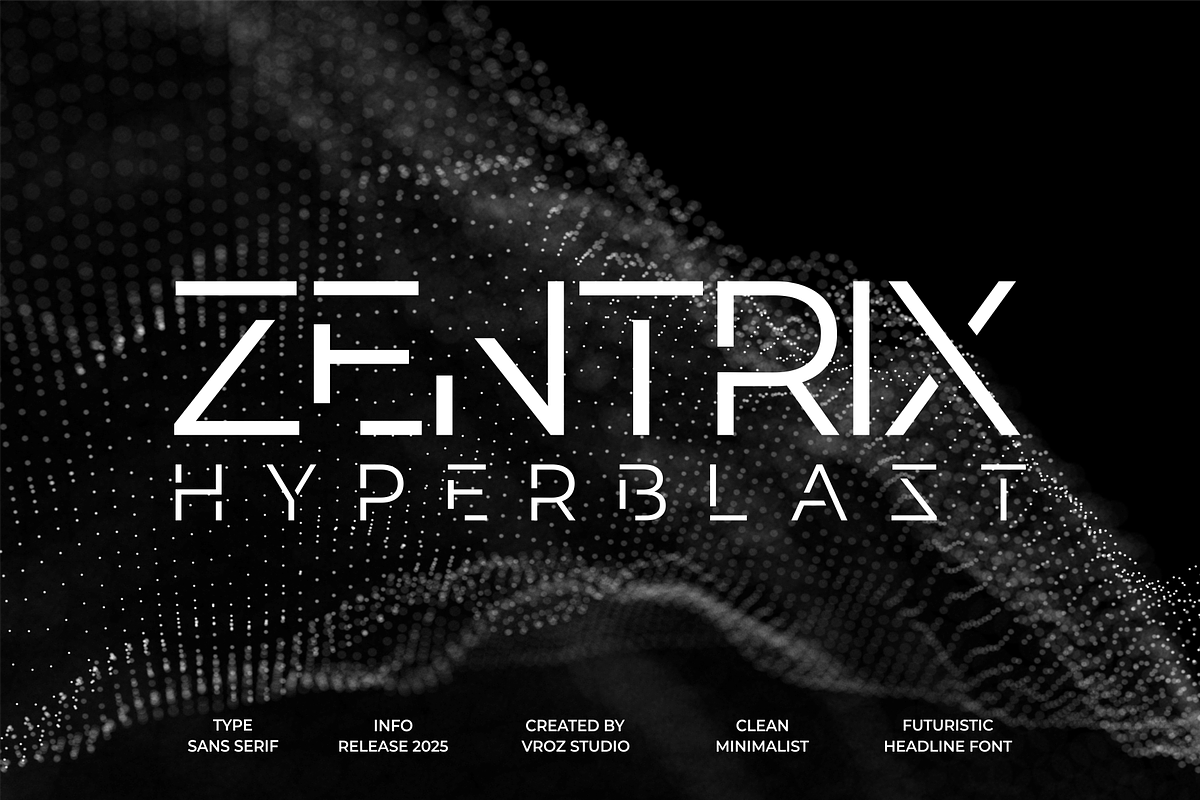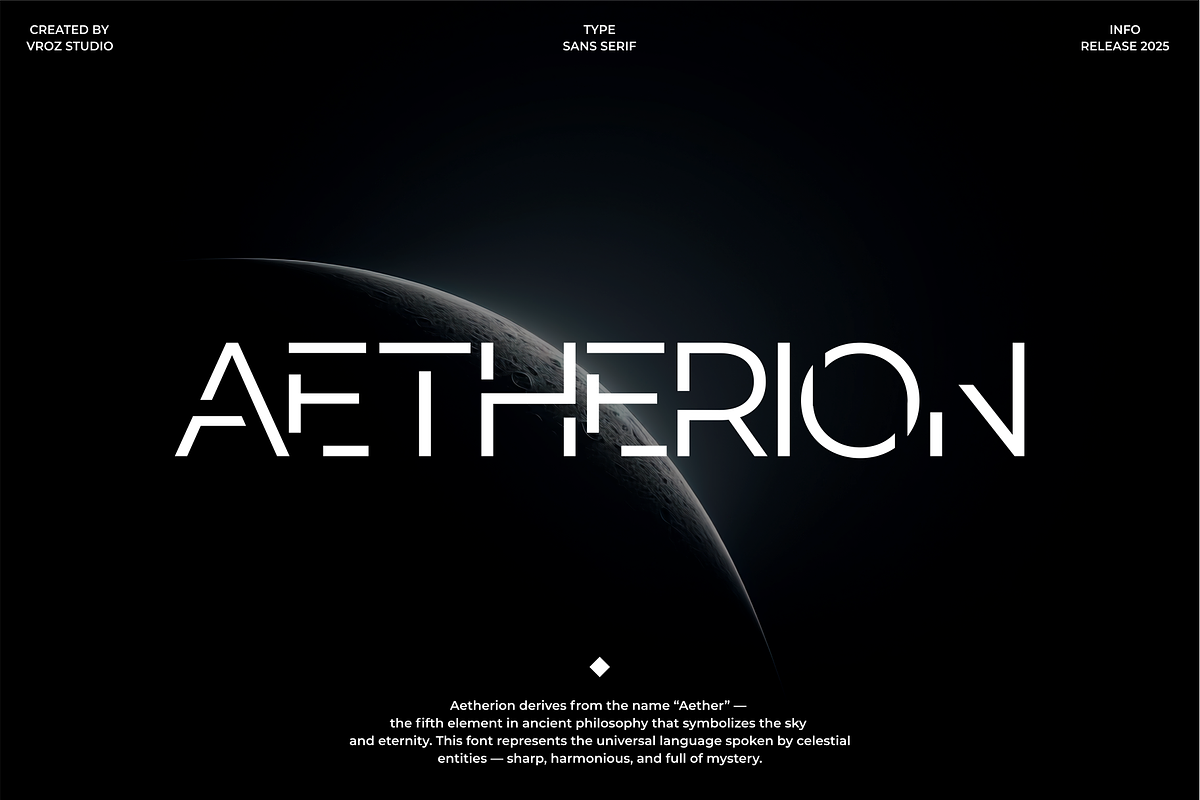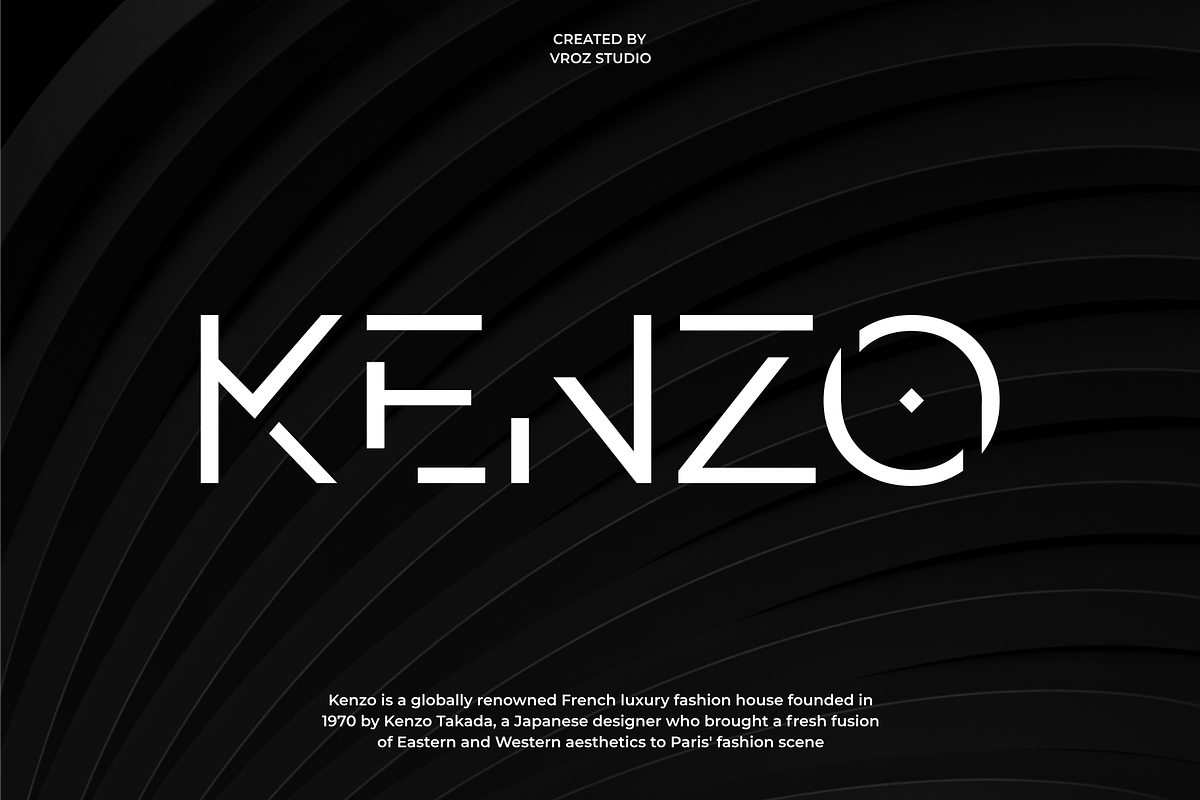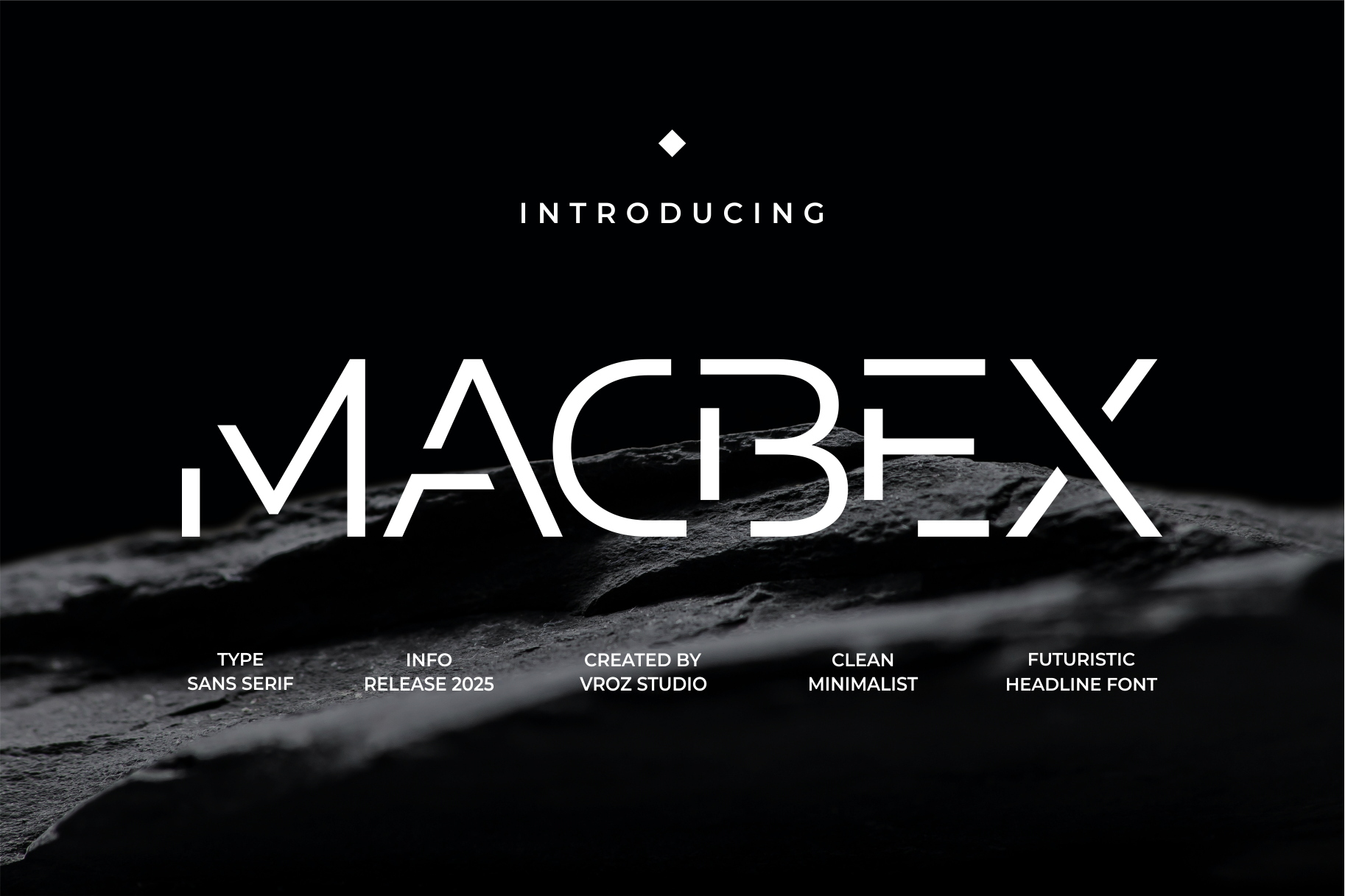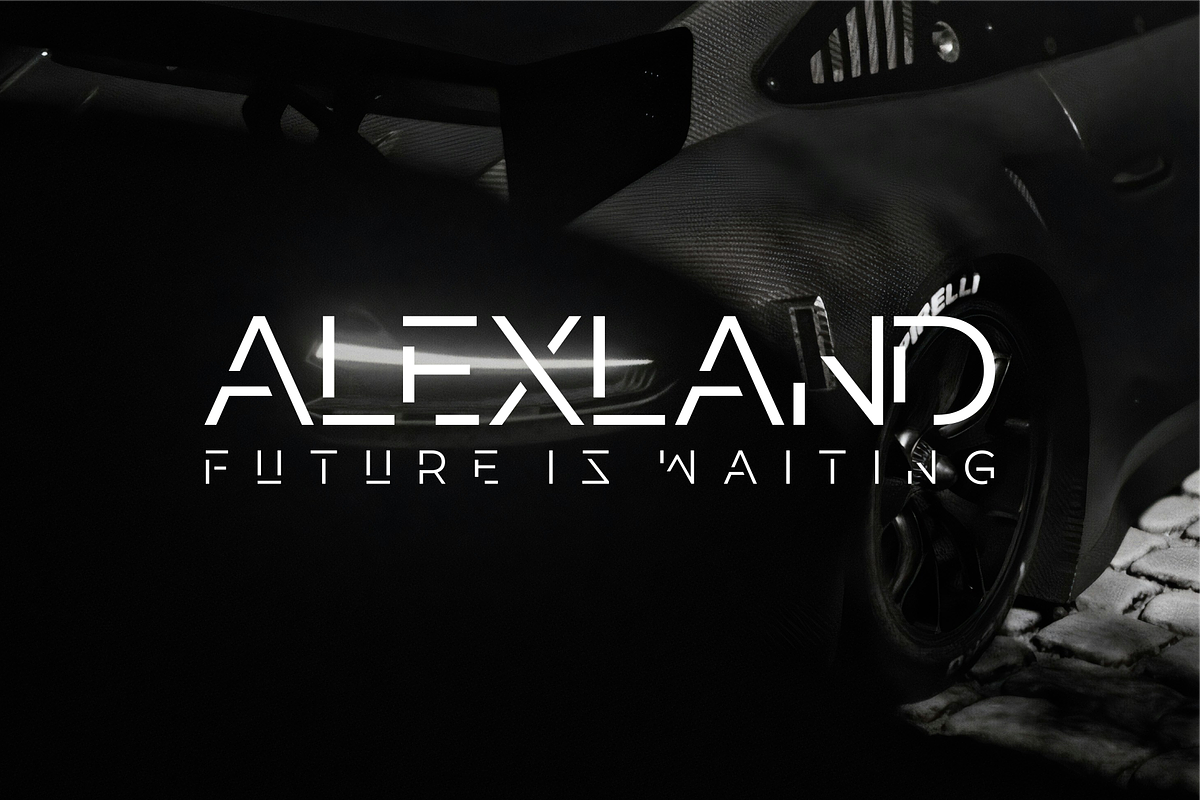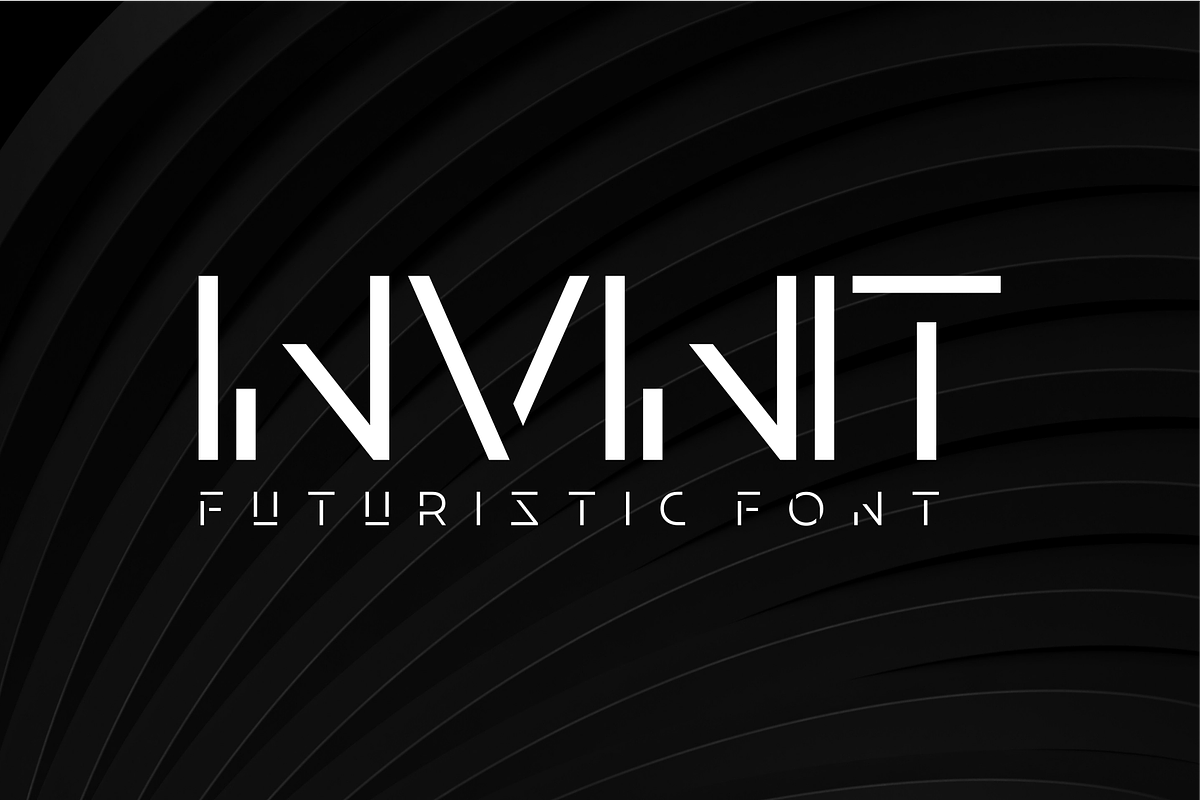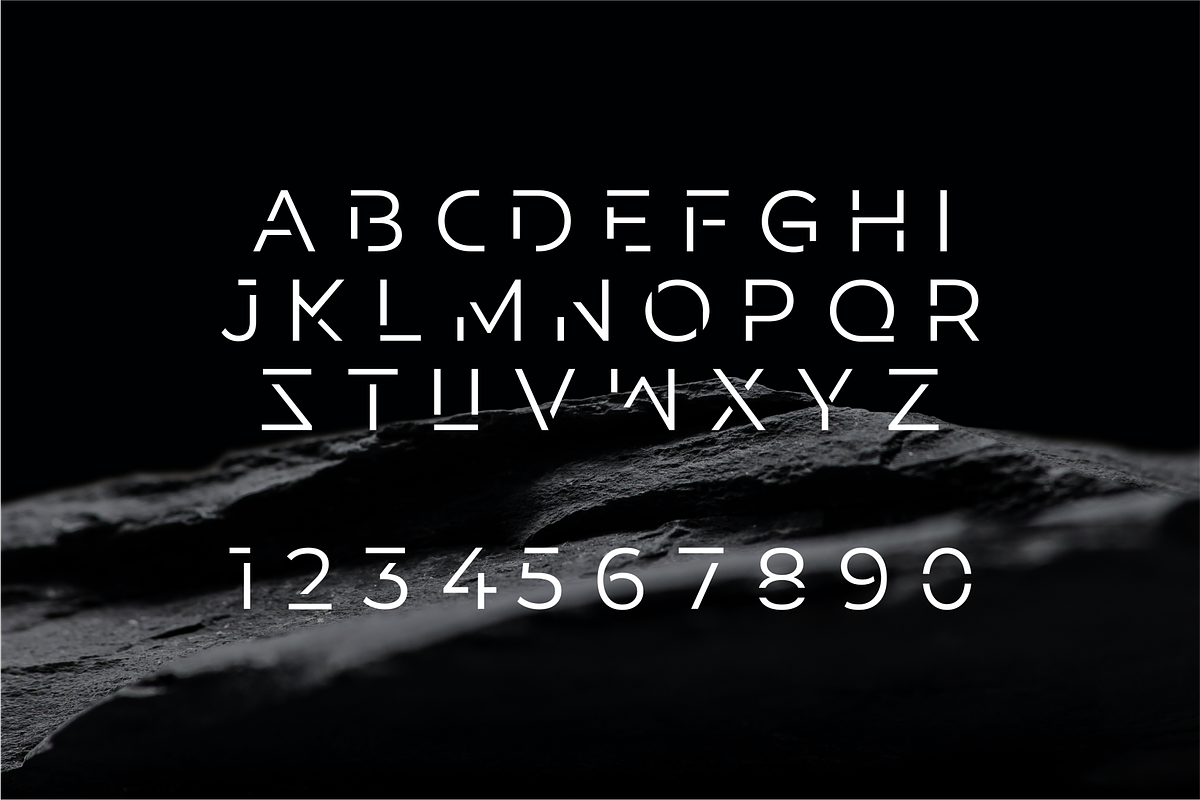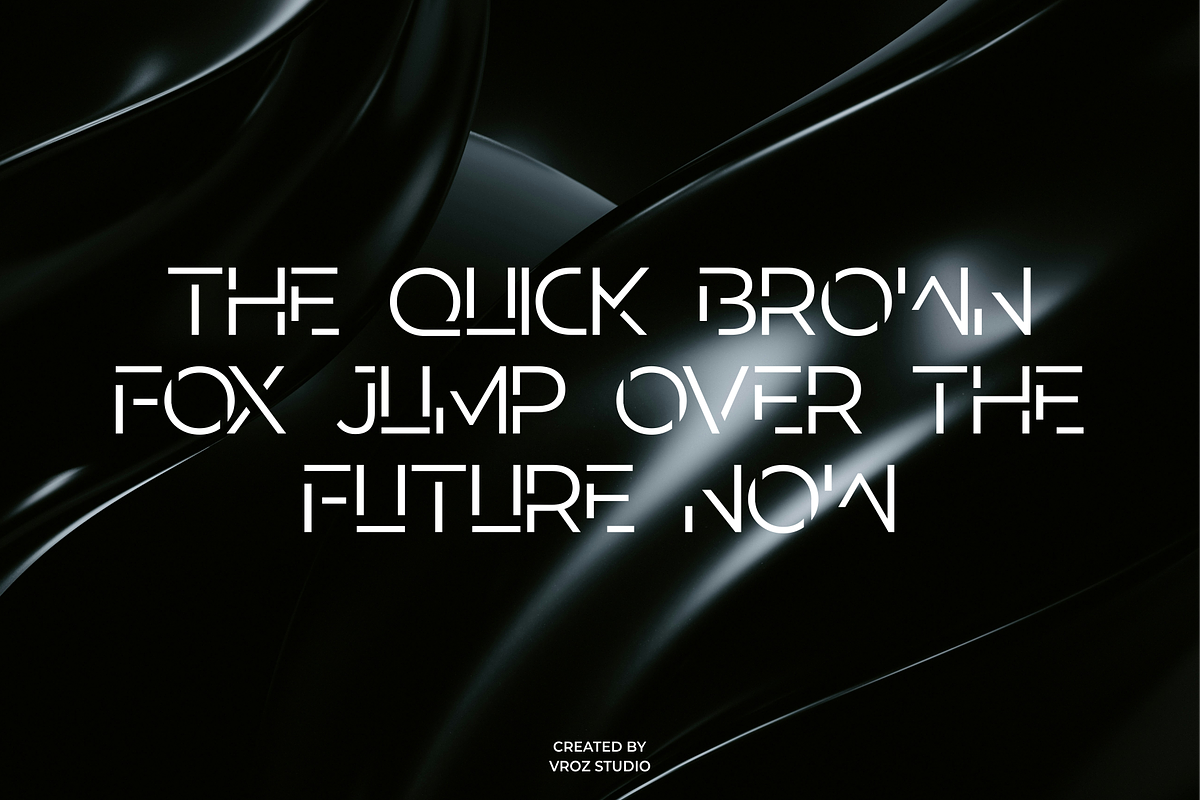
MACBEX - futuristic font
MACBEX – futuristic headline font
MACBEX is modern futuristic headline font designed to make your text stand out. With sharp geometric shapes, clean lines, and a high-tech aesthetic, this typeface is perfect for a wide range of creative and professional projects. Whether you're working on branding, fashion editorials, sci-fi posters, logos, web headers, or social media graphics, MACBEX adds a futuristic edge that grabs attention.
This font was built with versatility in mind — making it suitable for both digital and print use. Its unique character design gives off a tech-forward and innovative vibe, while still maintaining legibility and style.Perfect for everything from logo design, branding, magazine headlines, and blog headers to posters, book covers, advertisements, and social media visuals.